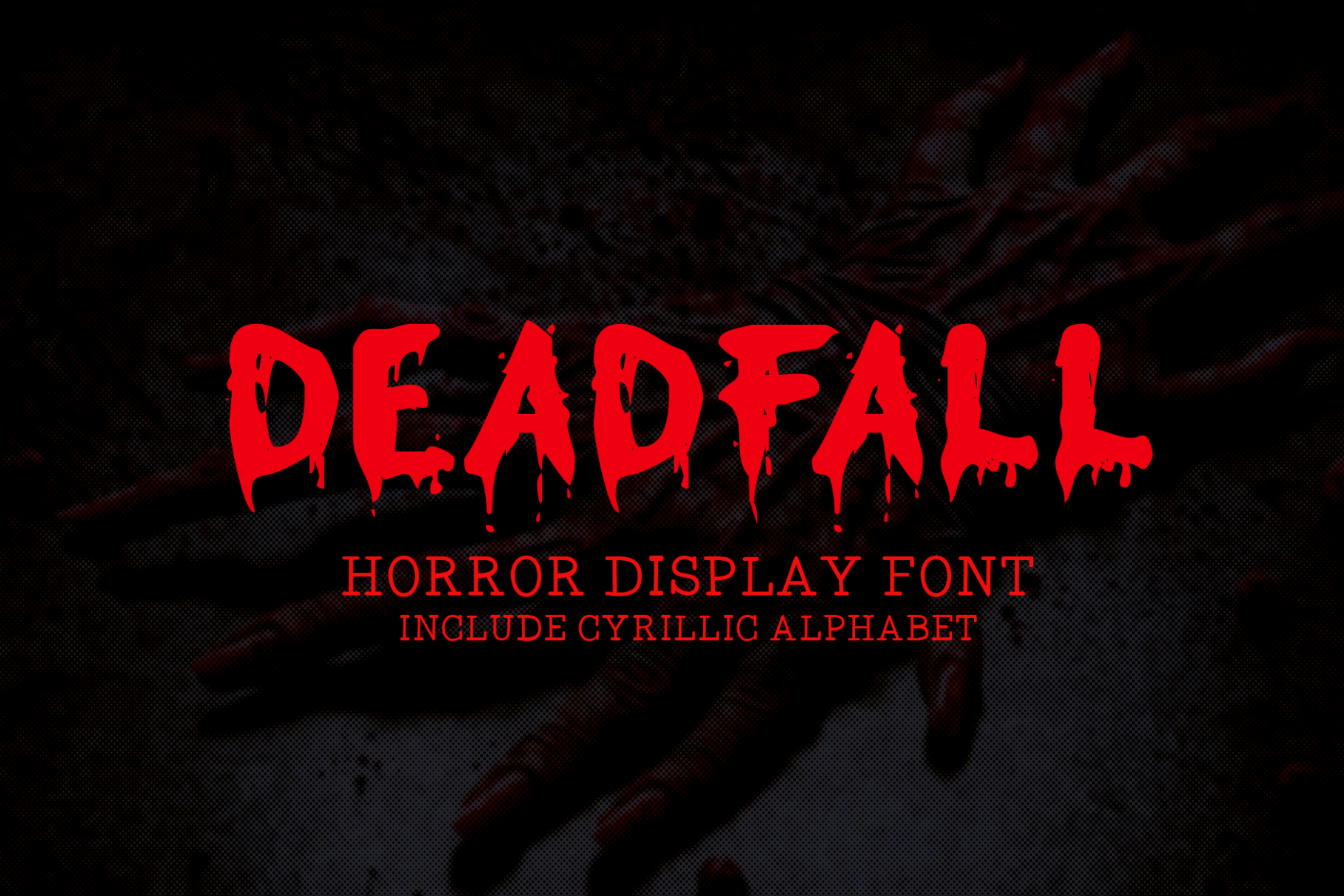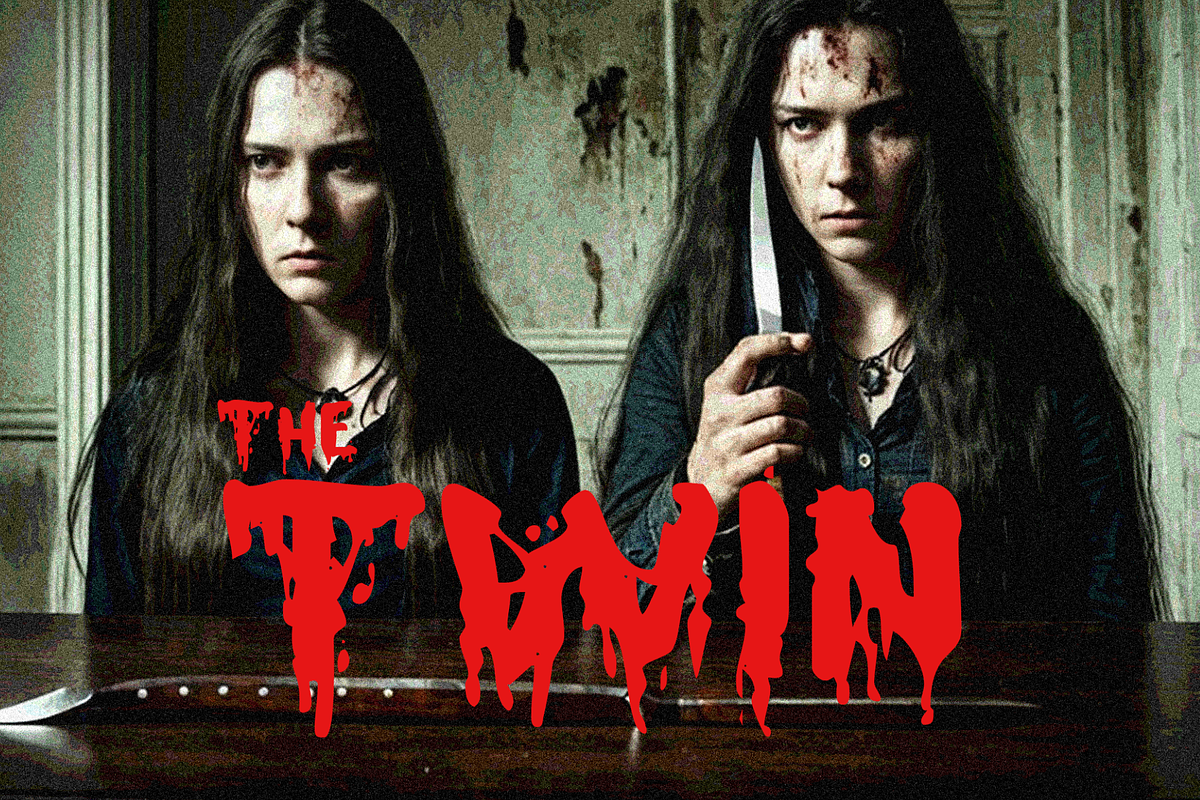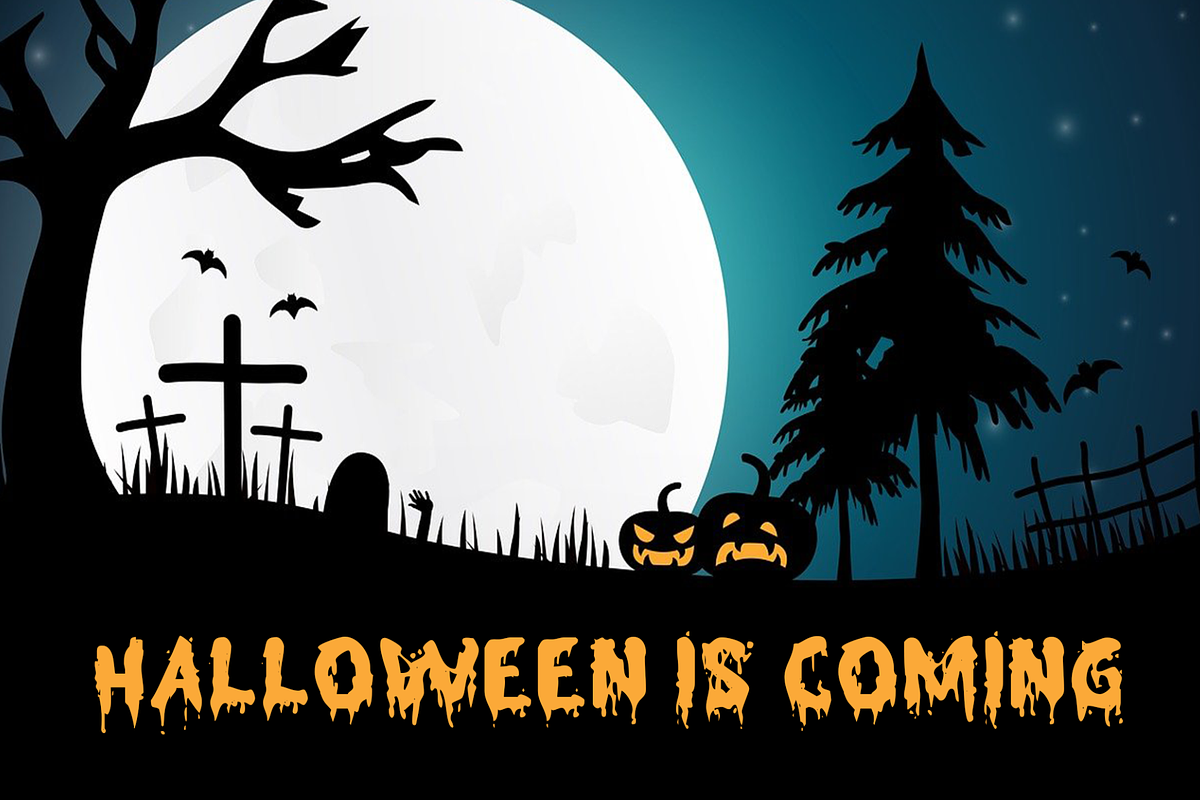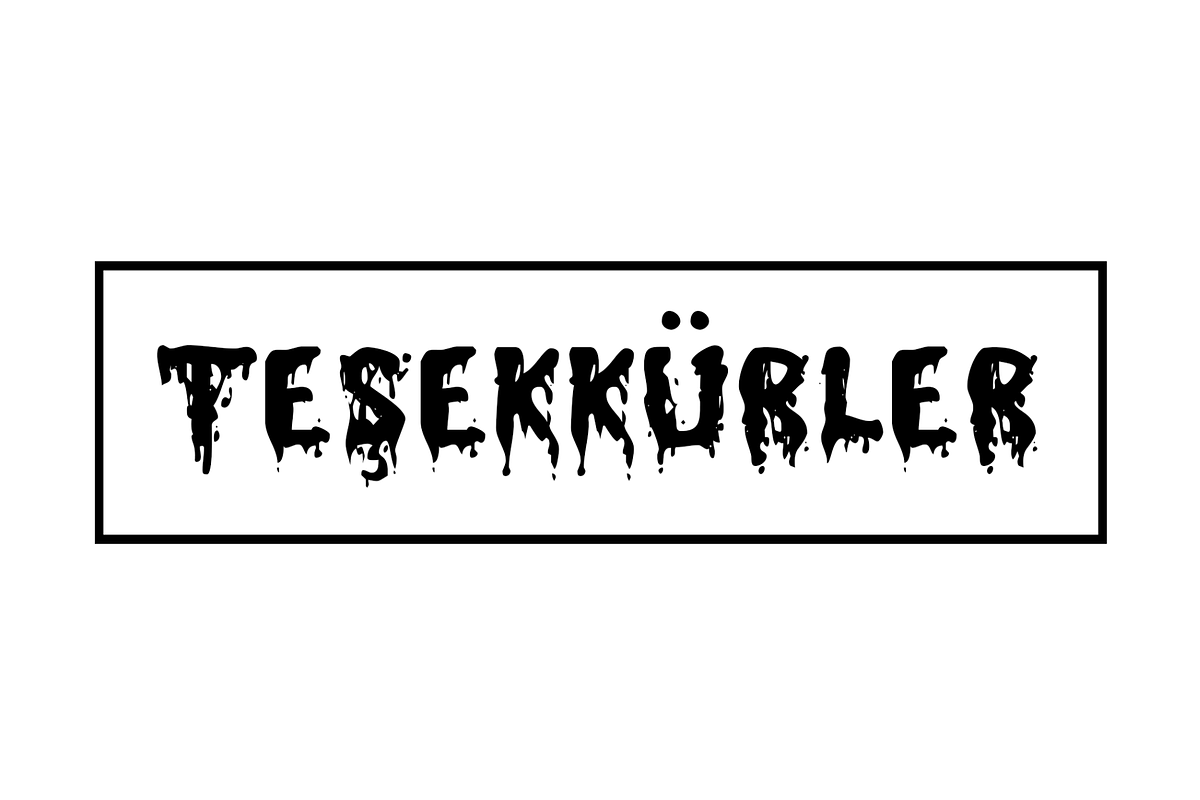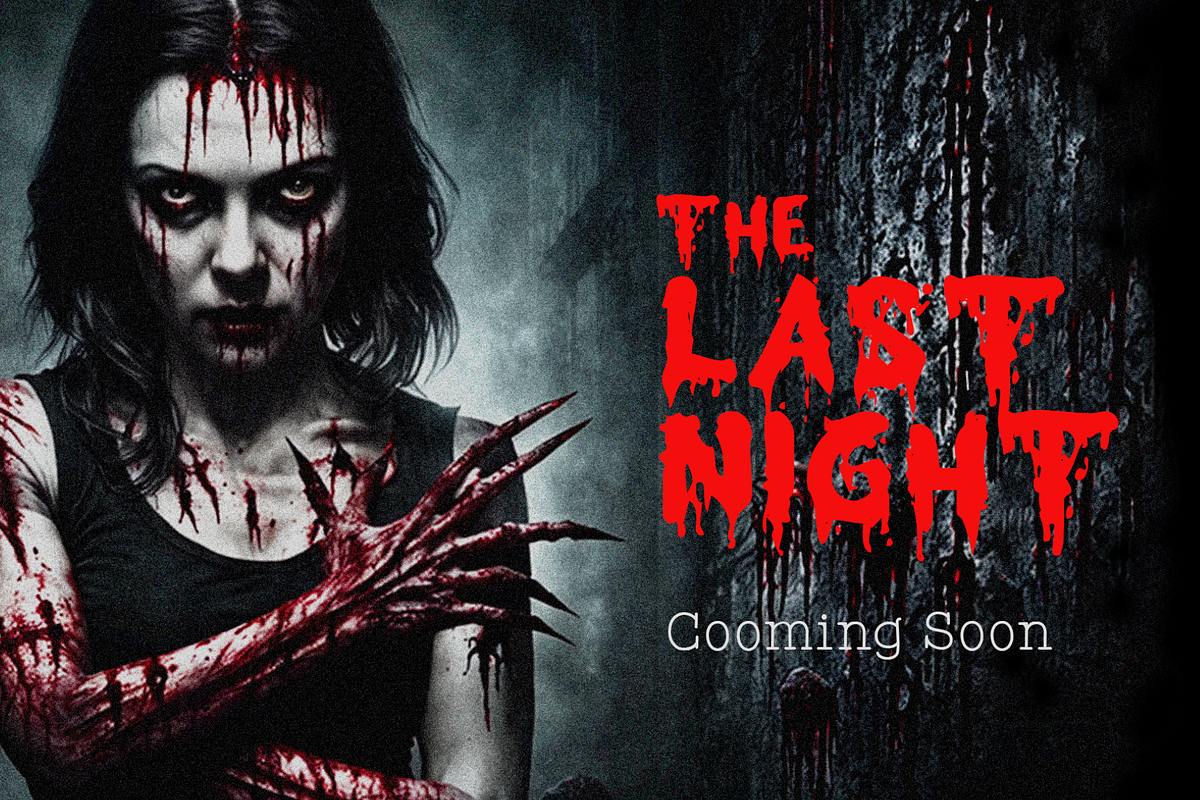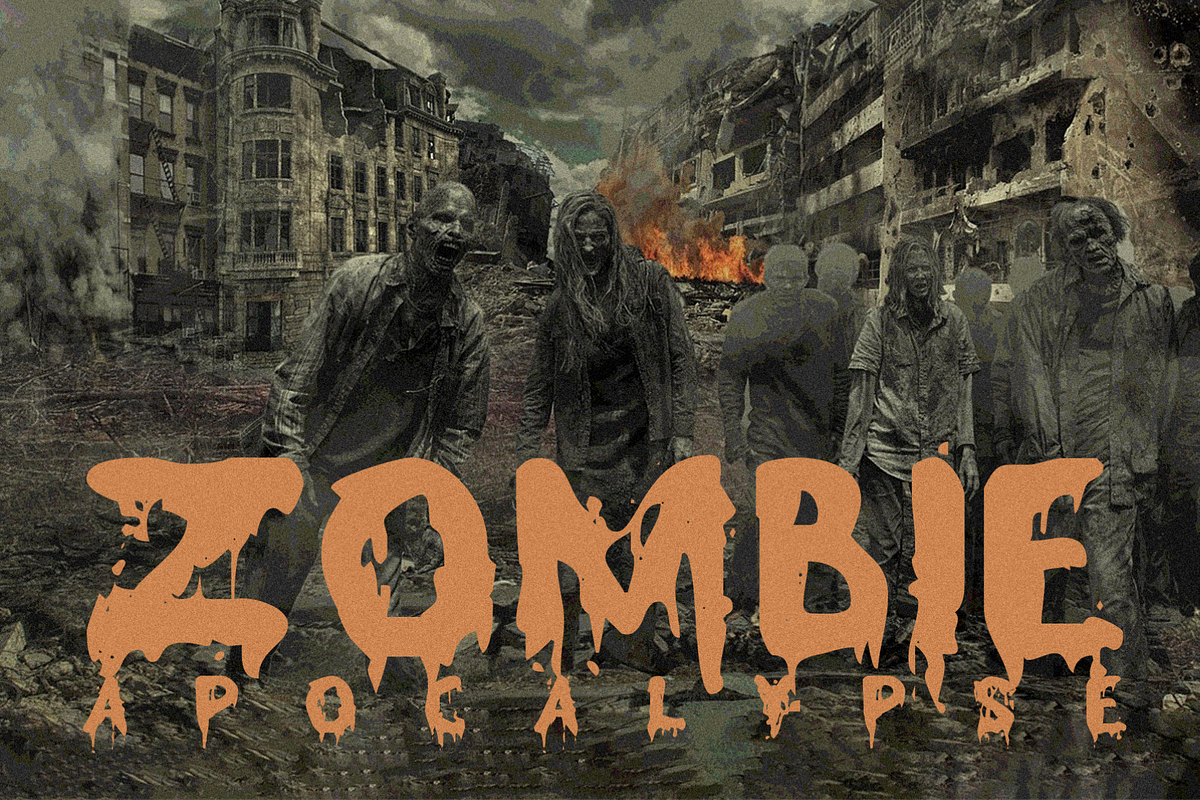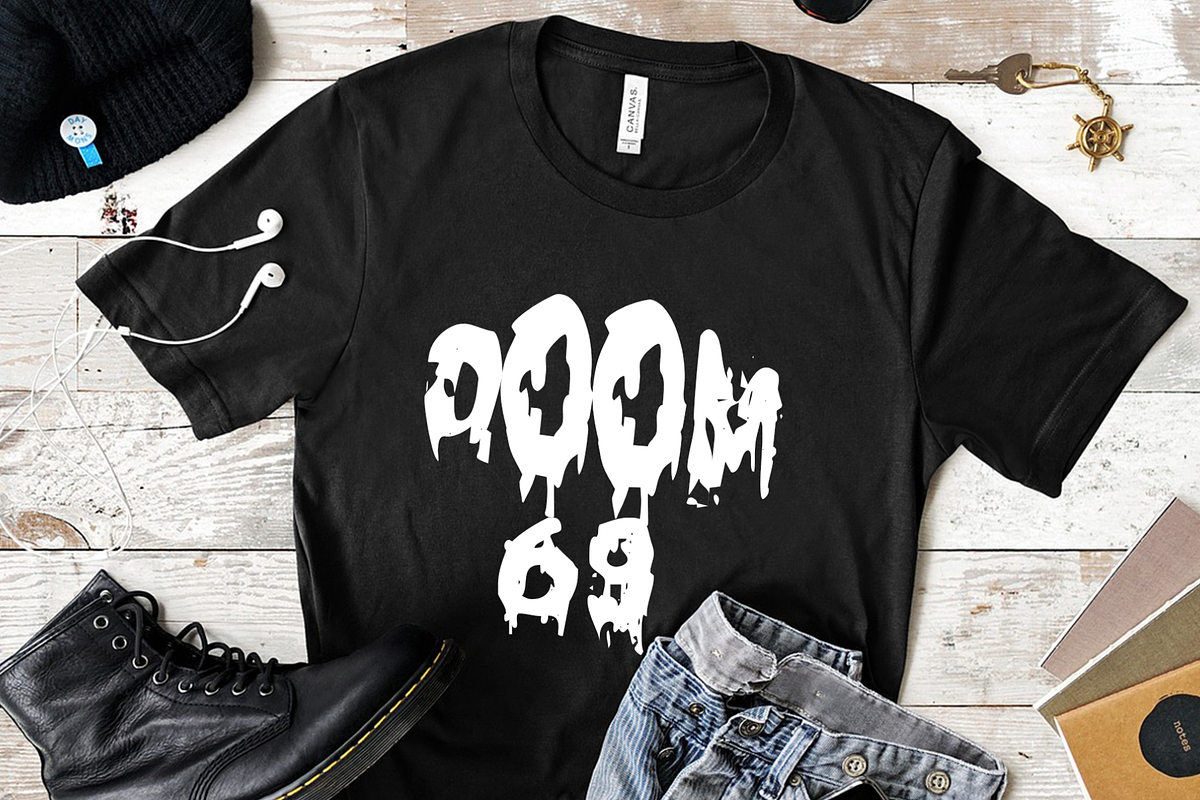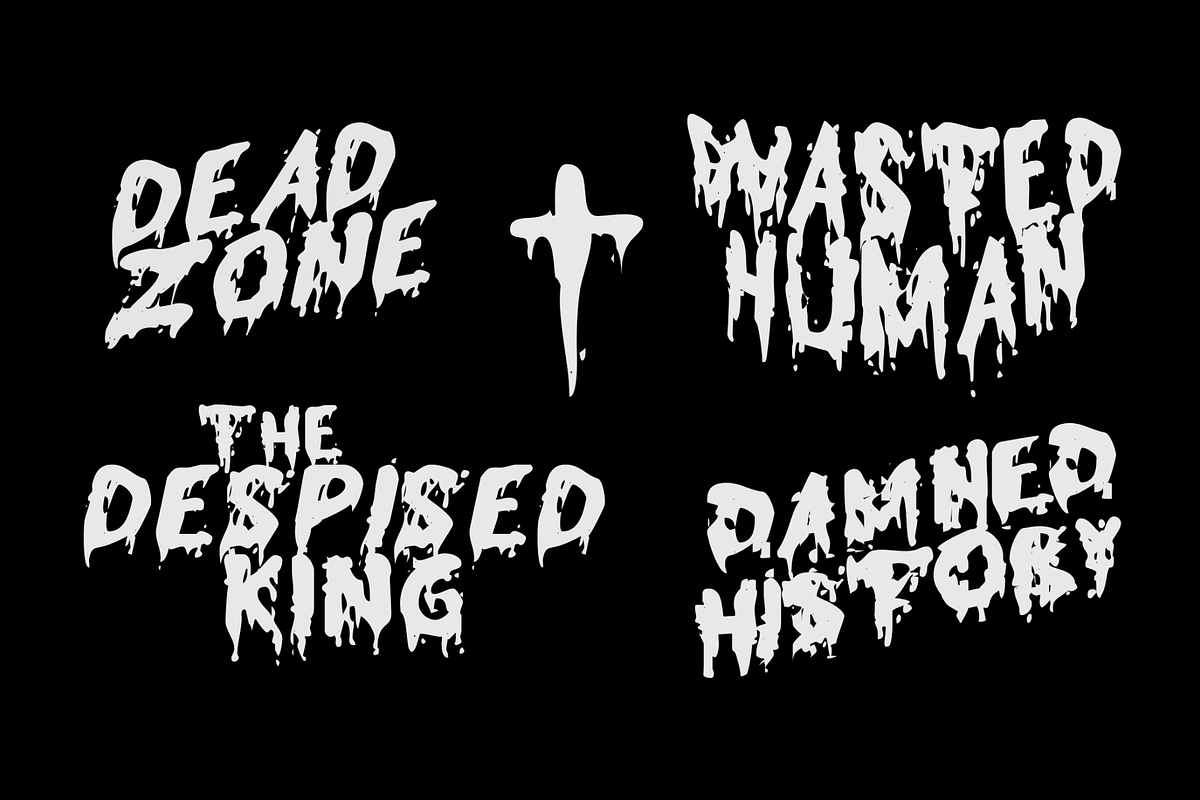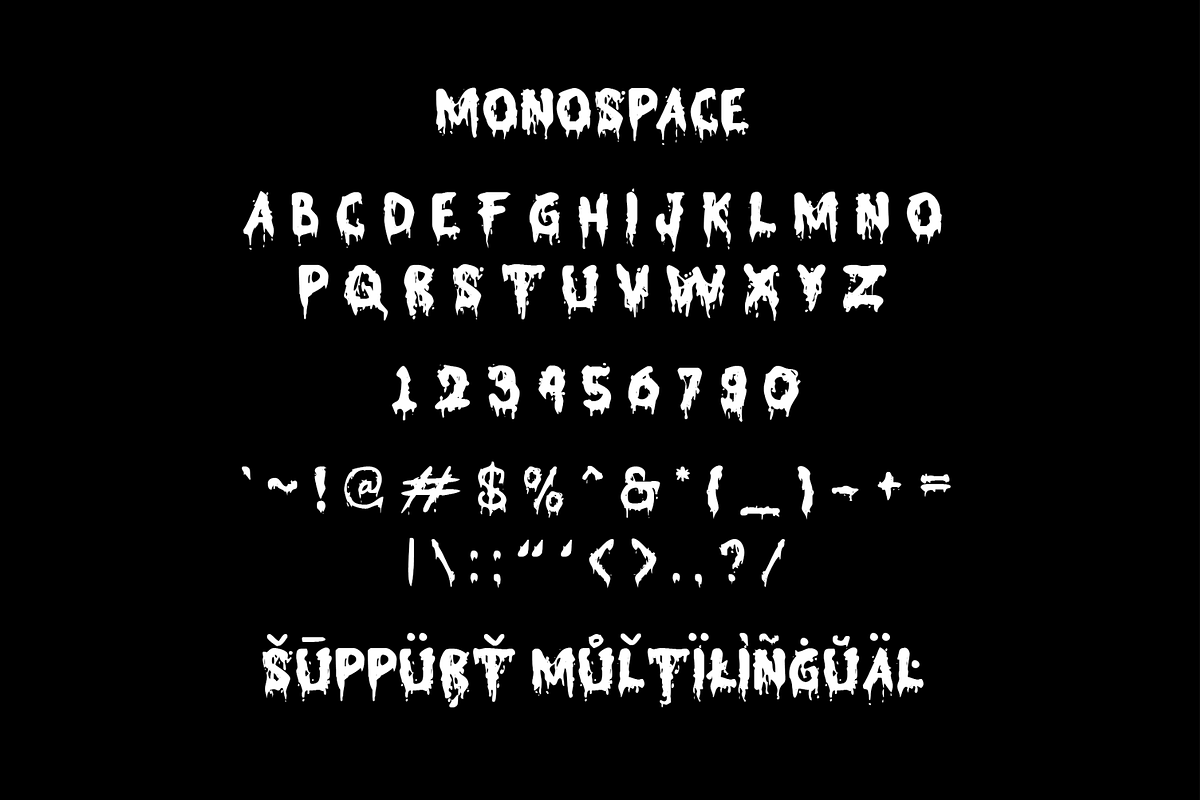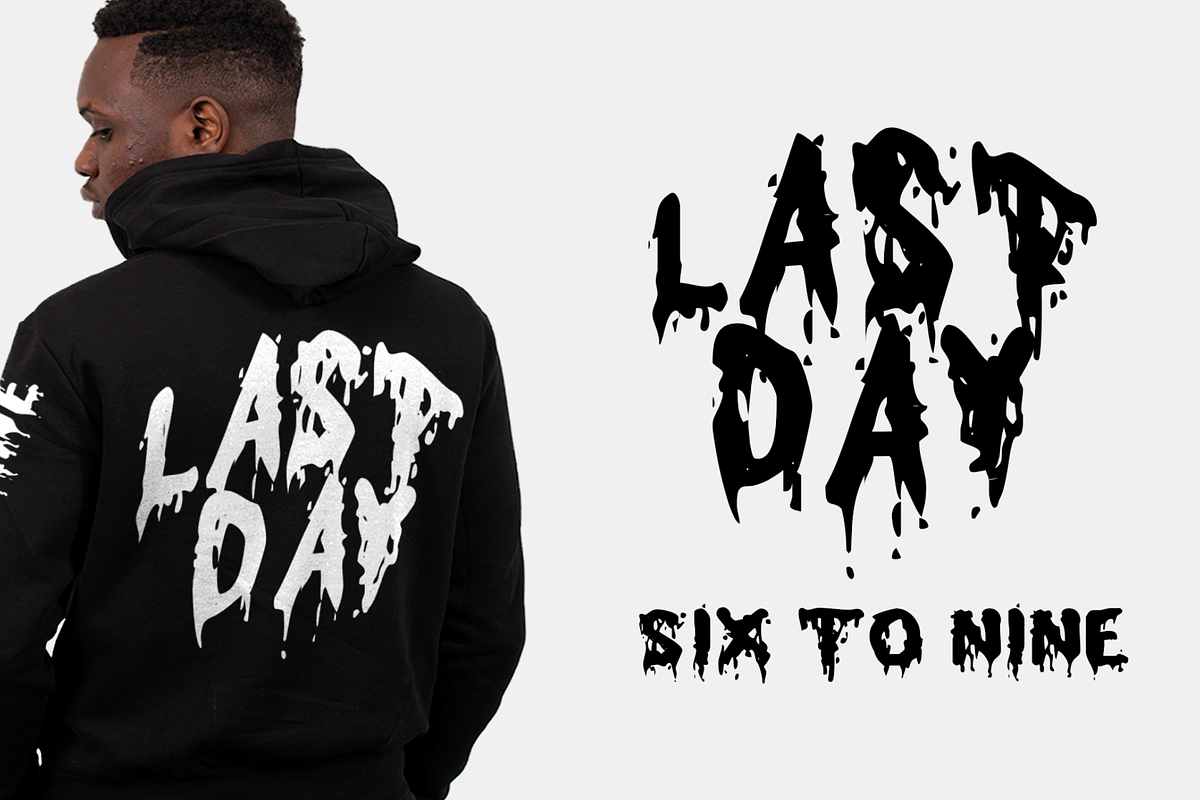
Deadfall - Horror Display Font
Introducing Deadfall, the ultimate horror display font! This Monospace typeface combines the essence of fear with a multilingual twist, boasting a captivating dripped and splash style. With the inclusion of the Cyrillic alphabet, it caters to a global audience. Offering both regular and italic variations, Deadfall is perfect for posters, marketing materials, chilling movie titles, Death metal logotypes, Halloween crafts, and an array of spine-tingling projects. Unleash the terror with Deadfall!